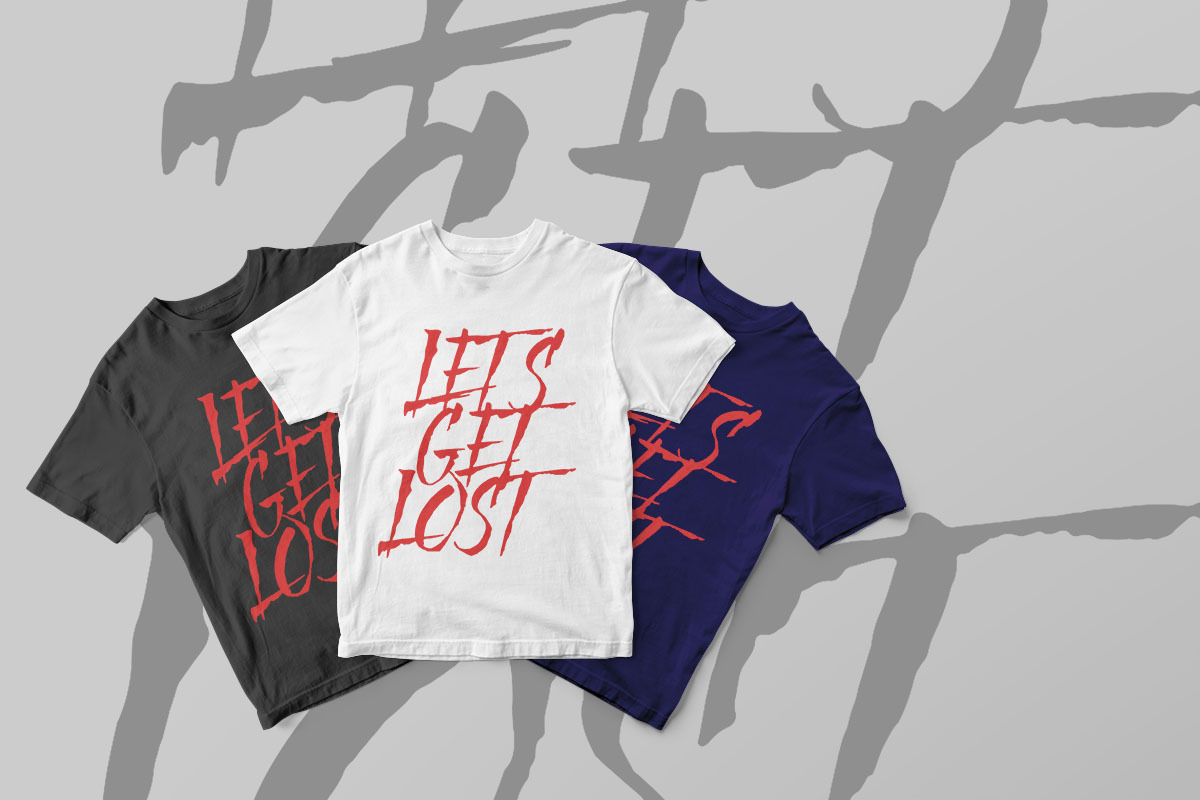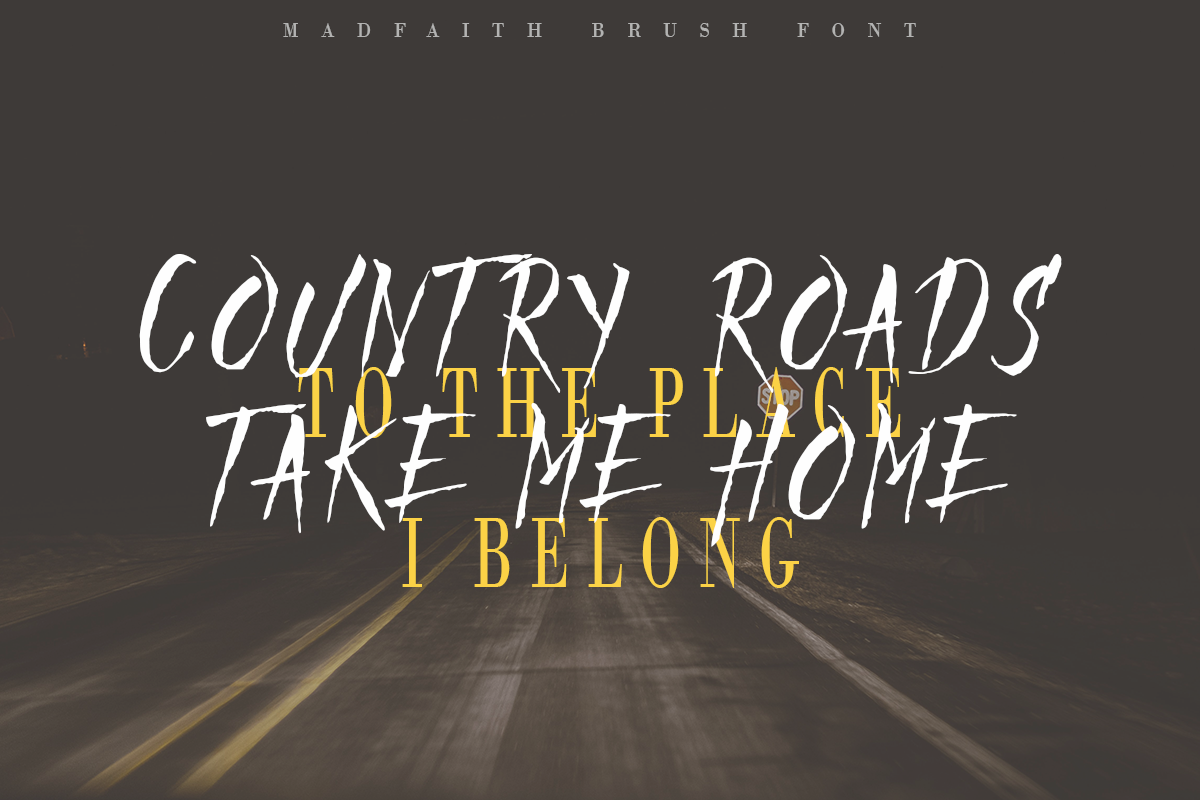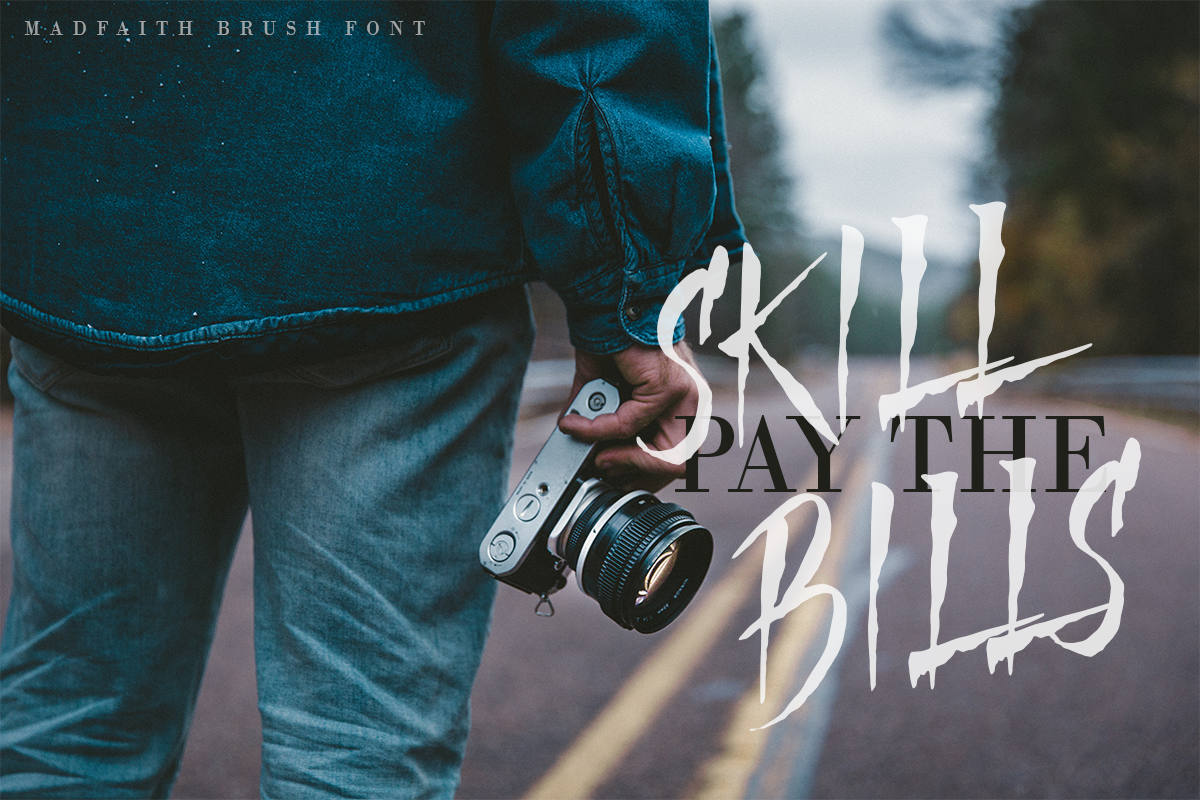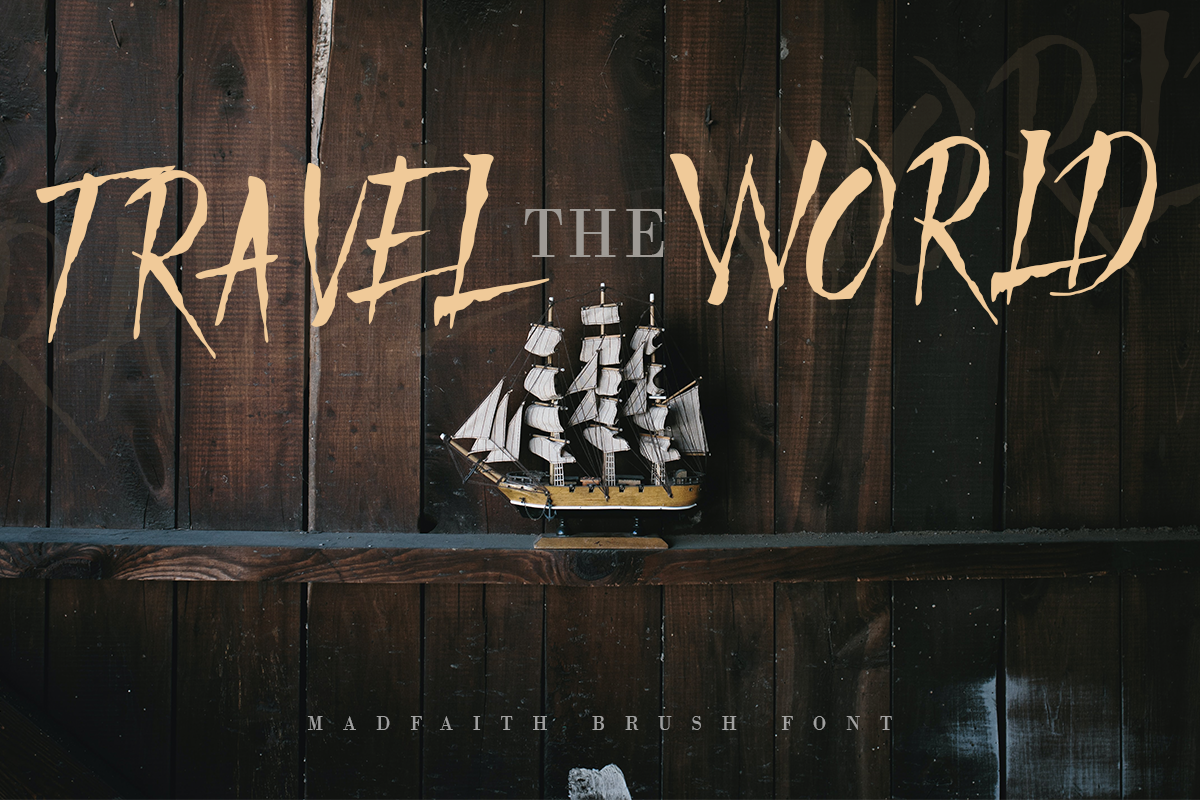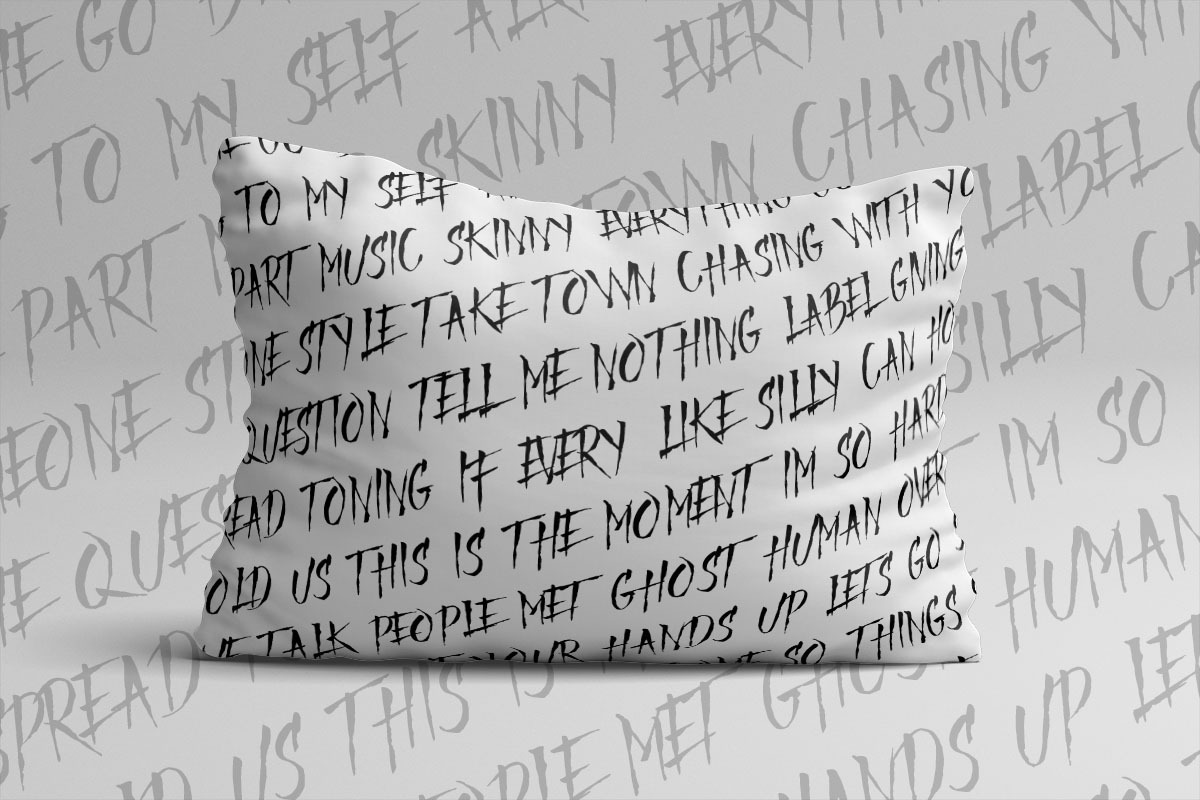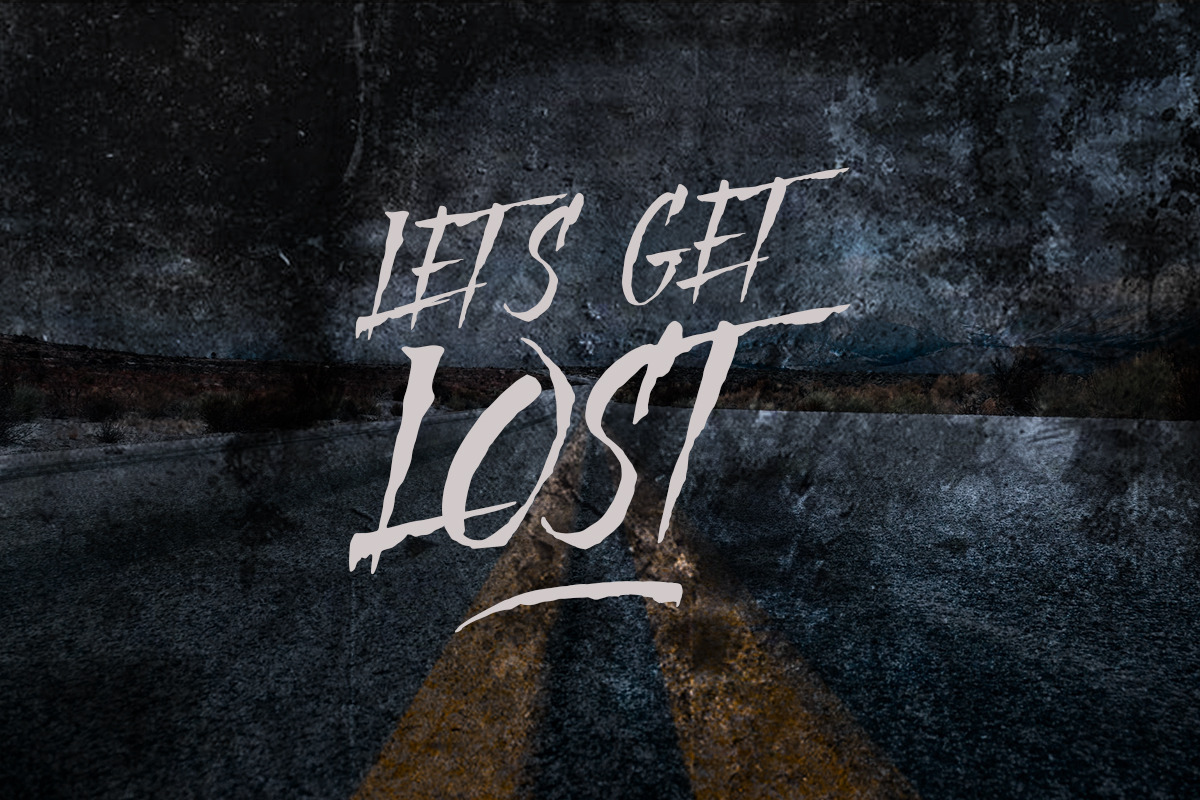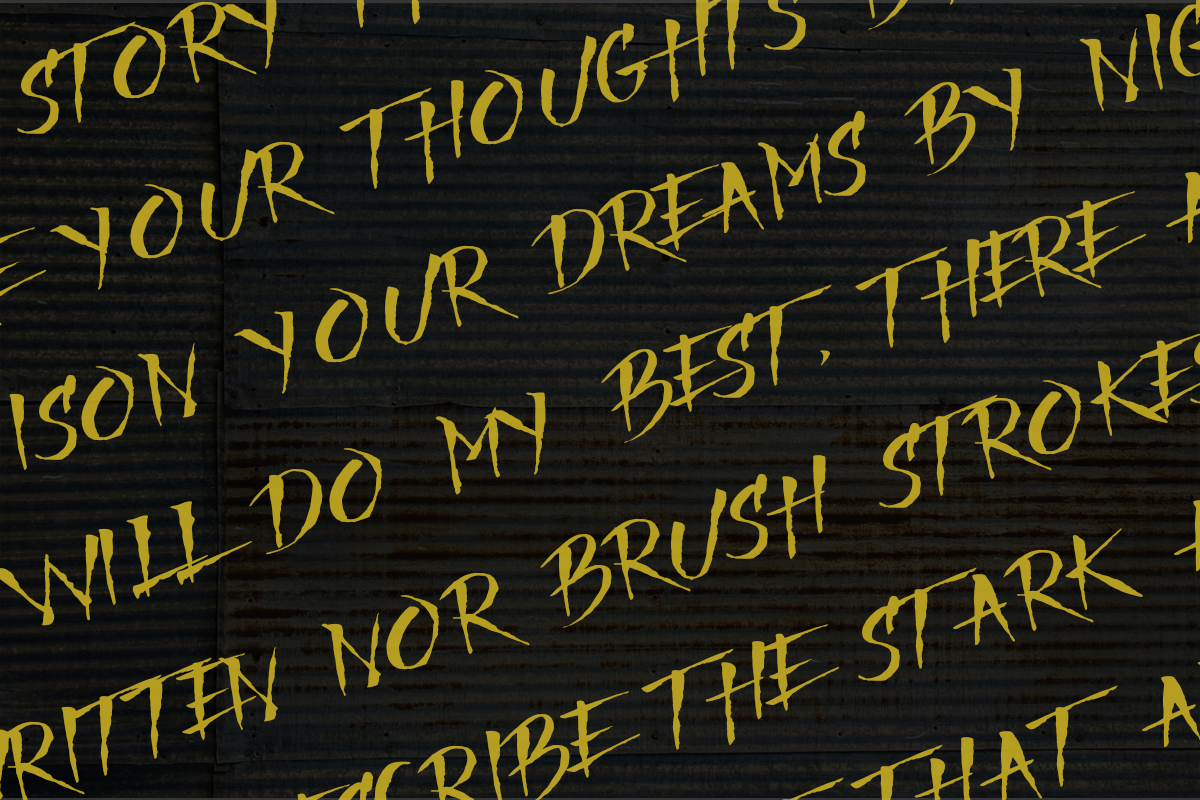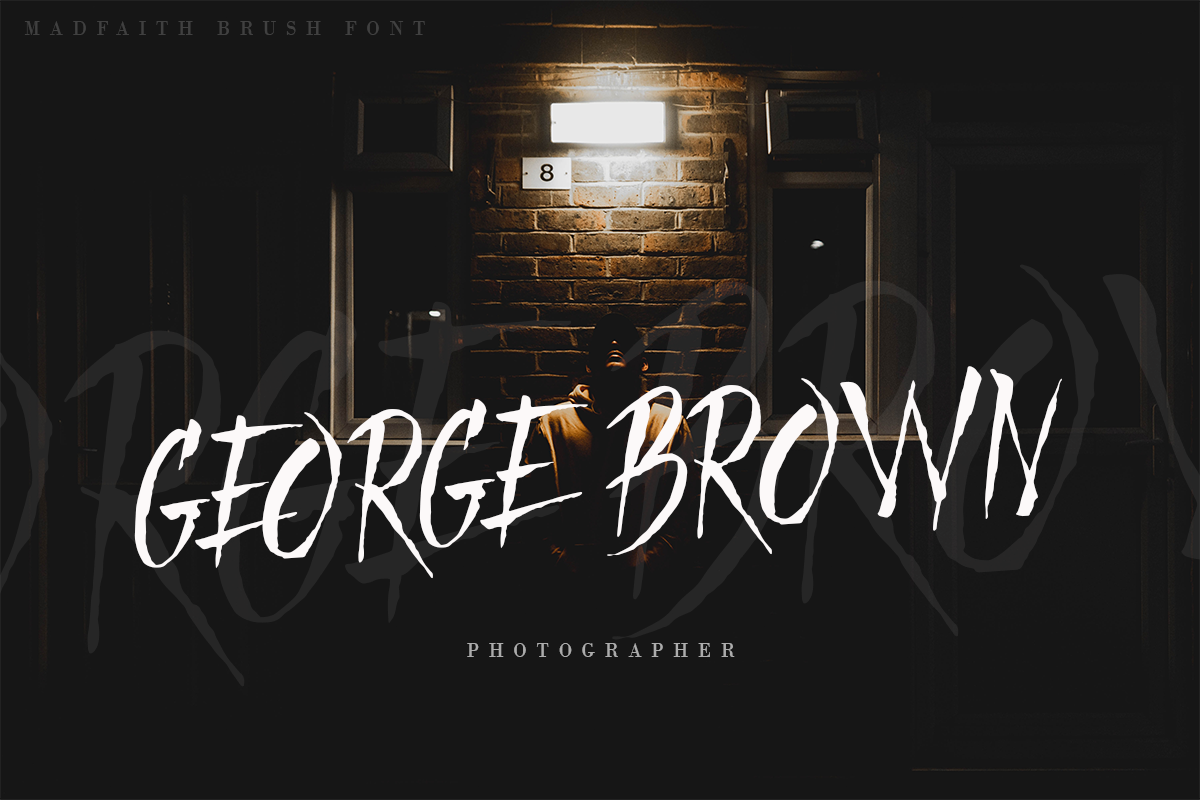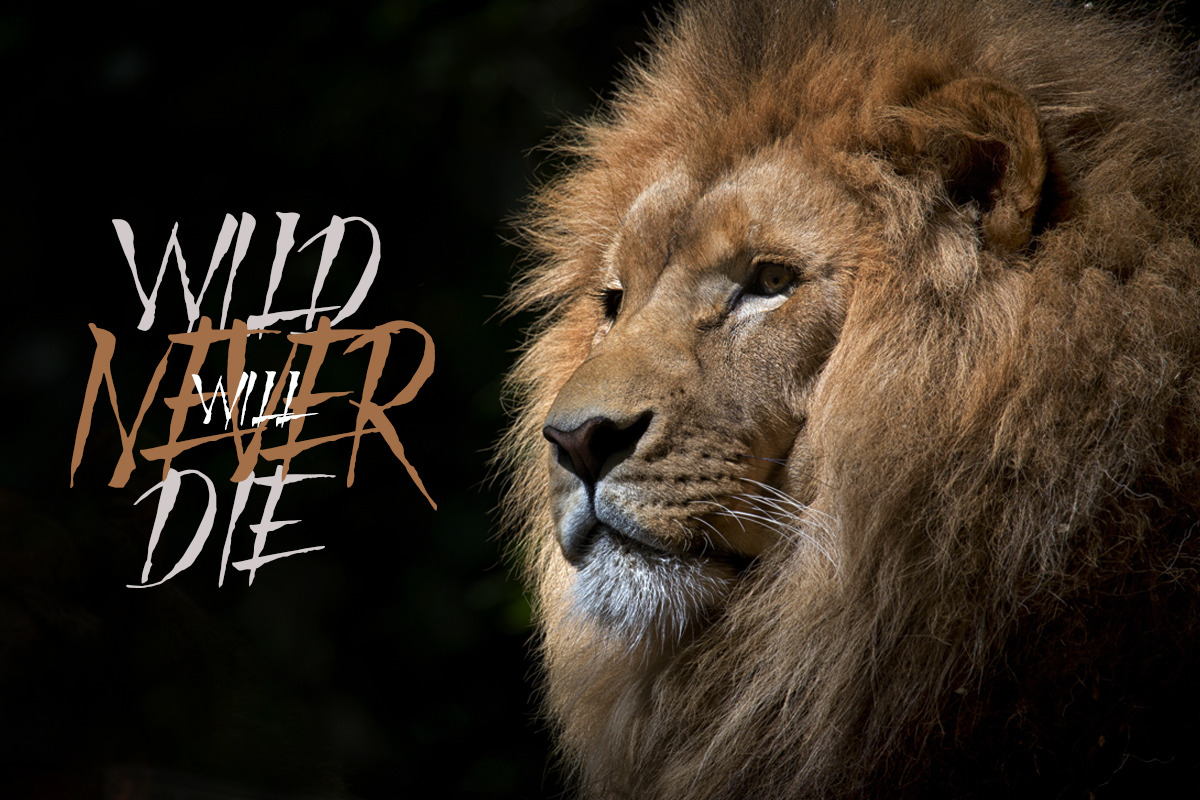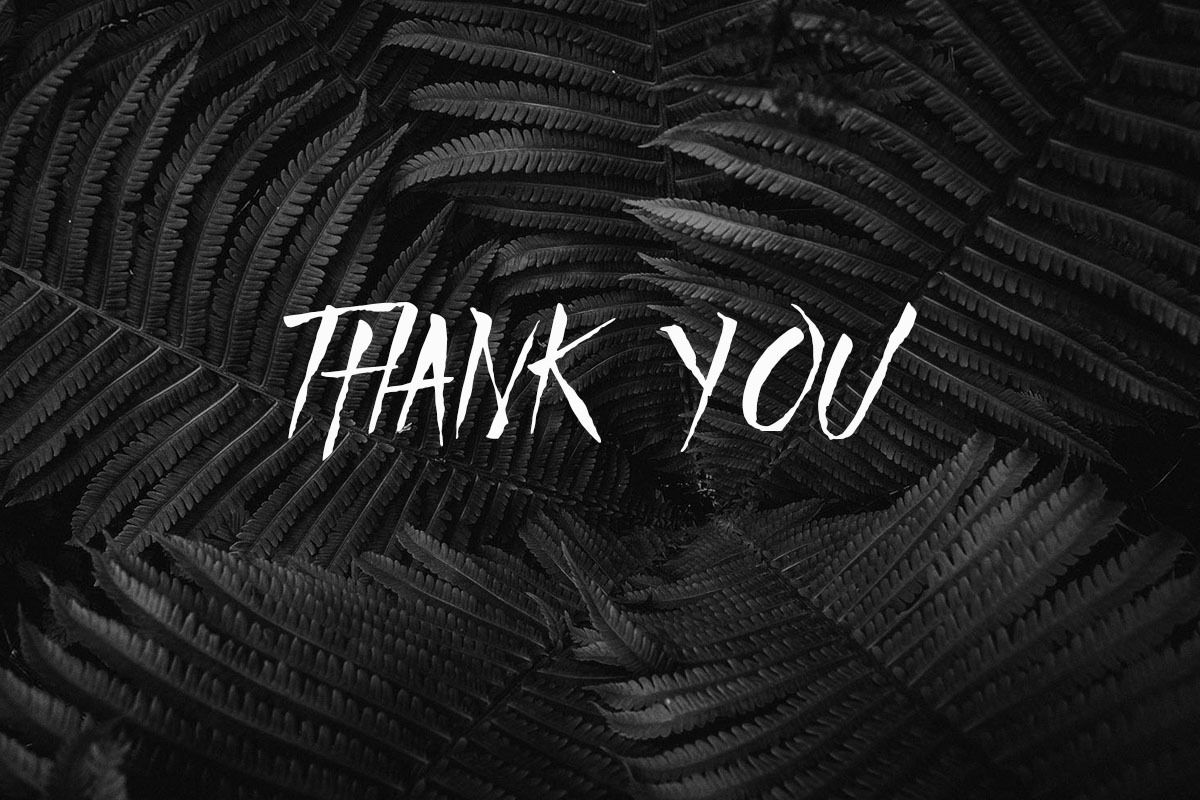
Mad Faith - Brush Font
Introducing, Mad Faith Font. Mad Faith is Display Typeface with Brush Texture wich is fierce syle and great for various design like Logo, Product, Stationary, clothing brand and much more. Mad Faith have more Glyph for explore your design
Mad Faith Font Features :
-All Caps Glyphs
-Alternative and Ligature
-Multilingual Support